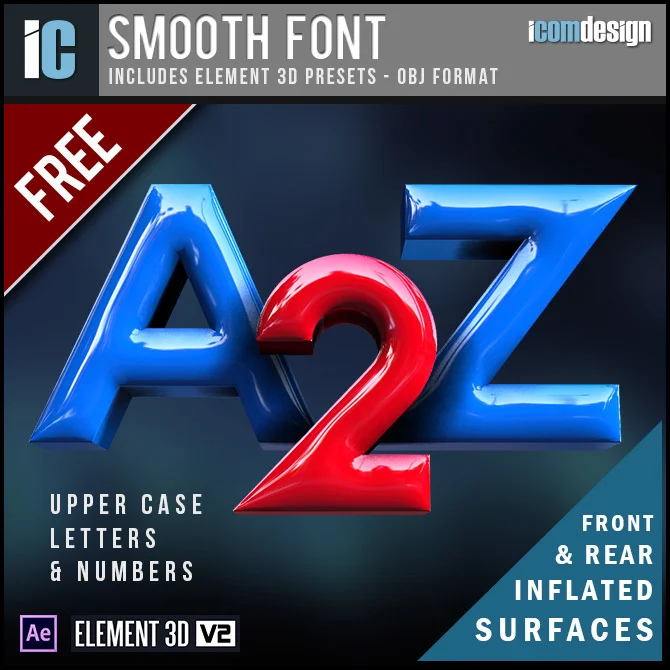
This asset pack provides a collection of 3D models representing an inflated text face style, inspired by shading techniques often found in Cinema 4D. The collection includes uppercase letters of the English alphabet and numbers from zero to nine. The assets are provided in the universal OBJ format, making them compatible with Blender and other 3D applications. The pack also includes installation instructions and presets for the After Effects plugin Element 3D.